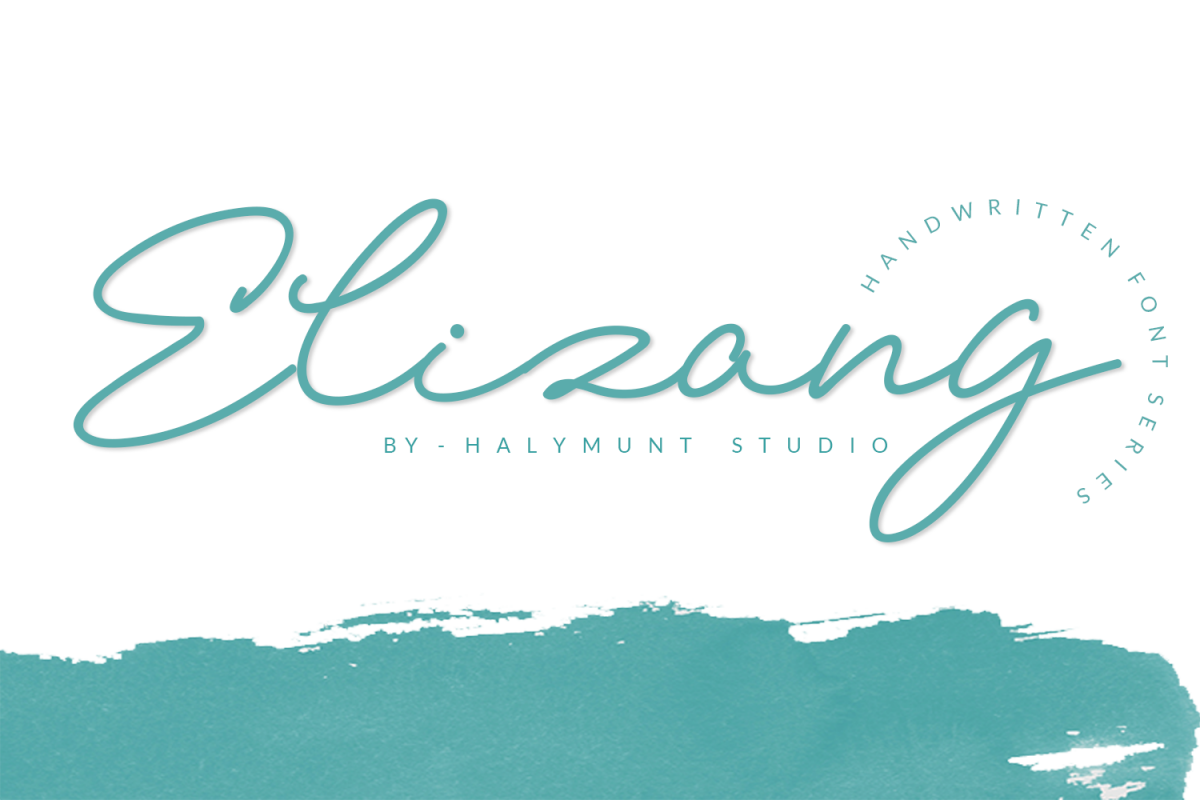
Elizany
Elizany Handwritten
Elizany features an incredibly luxurious and sophisticated style that will perfectly translate into any design project.
Elizany Handwritten Font: is perfect for branding projects, logo, wedding designs, social media posts, advertisements, product packaging, product designs, label, photography, watermark, invitation, stationery, and any projects that need handwriting taste.
• More than 241 of glyphs
• Tons of Ligature